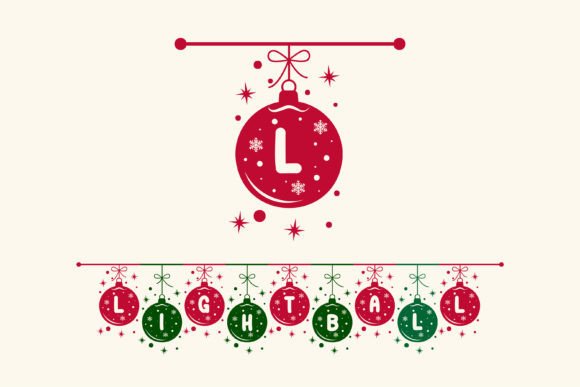
Introducing Lightball String Font - the ultimate font to elevate your brand logo and bring a touch of magic to your designs! Created by susecreative, this cool and unique decorative display font is perfect for spreading the Christmas cheer all year round.
Drawing inspiration from the mesmerizing beauty of Christmas light balls, Lightball String Font adds a delightful charm to any project it graces. With its playful and whimsical style, this font is a must-have for those looking to create cute holiday t-shirts, stickers, cover books, children's books, social media posts, and so much more!
Capture the essence of the holiday season with Lightball String Font, as it effortlessly conveys warmth, joy, and a sense of wonder. Its intricate details and exquisite craftsmanship make it a standout choice for both professionals and amateurs alike.
Crafted with meticulous attention to detail, Lightball String Font is designed to captivate your audience and leave a lasting impression. Its versatility allows it to seamlessly blend into various design styles, from elegant and sophisticated to fun and playful.
With Lightball String Font, your brand logo will shine brighter than ever before. Its unique characters and eye-catching curves will ensure that your logo stands out from the crowd and leaves a memorable impact on your audience. Let your brand exude creativity and originality with this font that is truly one-of-a-kind.
Embrace the magic of Lightball String Font and let your imagination run wild. Unleash your creativity and bring your ideas to life with this font that is sure to evoke emotions and create a powerful connection with your target audience. Spread the holiday spirit and make your designs truly unforgettable.